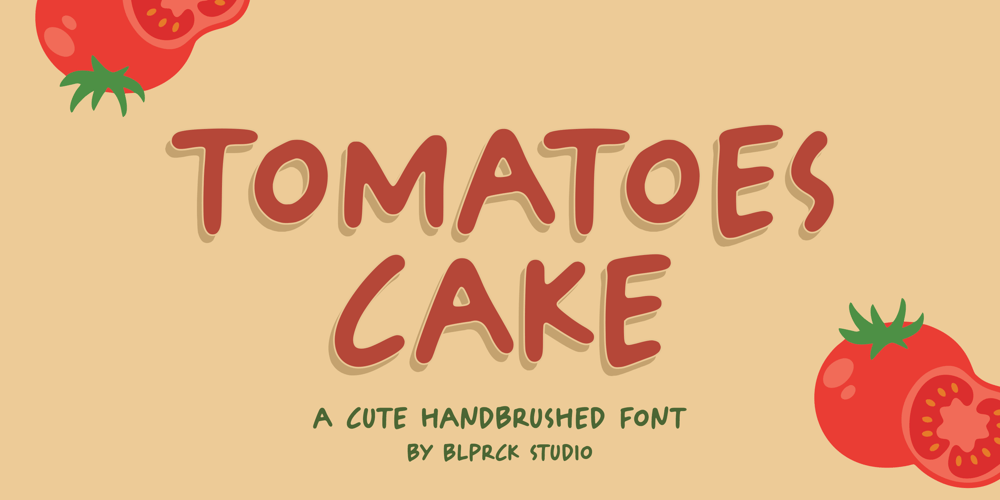
Tomatoes Cake Font Family was designed by Restu Angga and published by Balpirick. Tomatoes Cake contains 1 styles and family package options. Tomatoes Cake is a Cute Handbrushed Font.Whether you’re using it for crafts, digital design, presentations, or making greeting cards, this font has the potential to become your favorite go-to font, no matter the occasion!This font only has allcaps letters. – also multilingual supportEnjoy the font! Feel free to comment or feedback!Thank you!